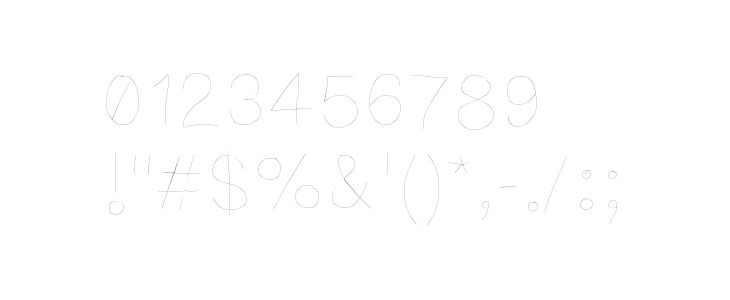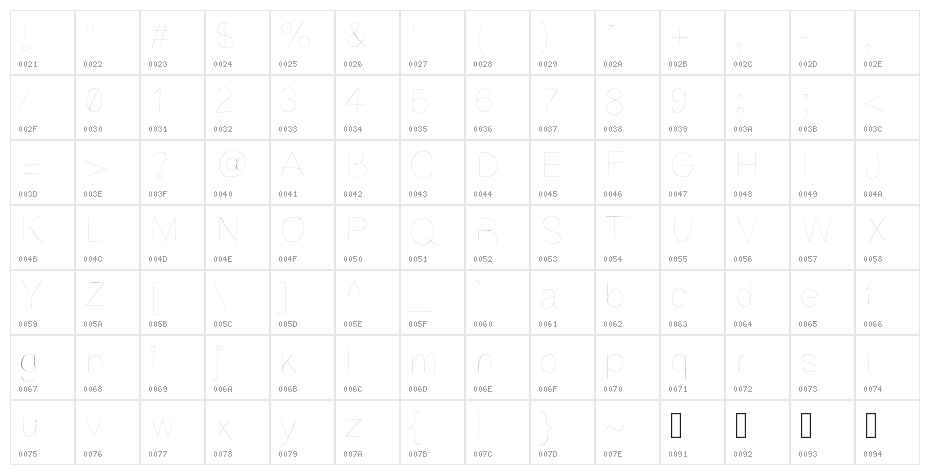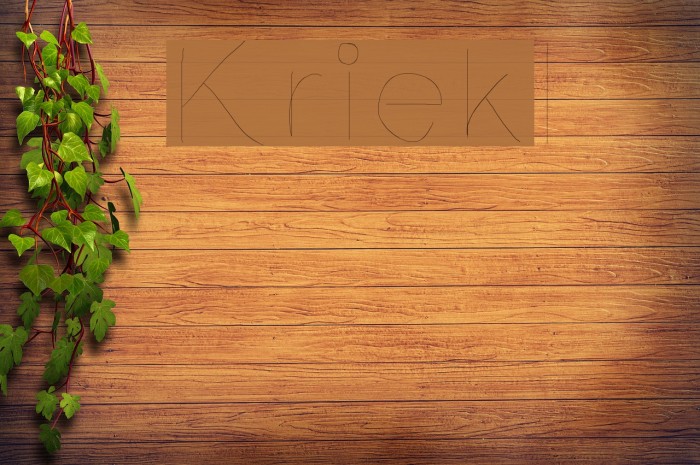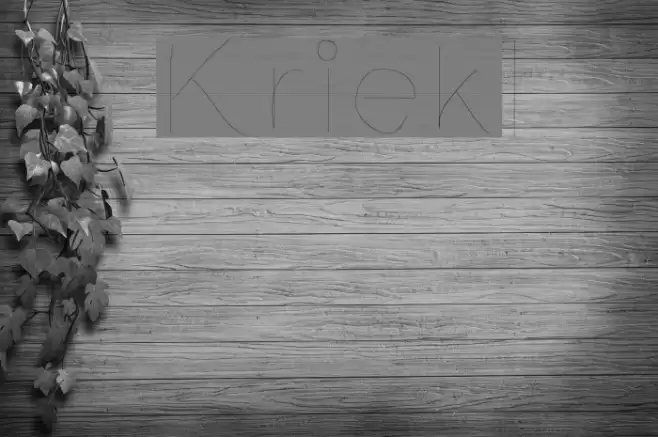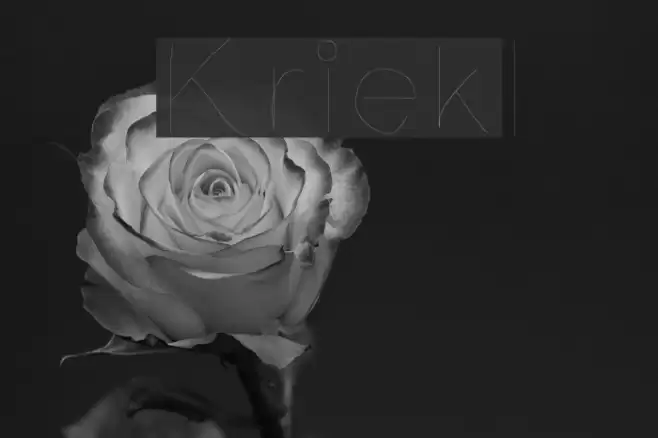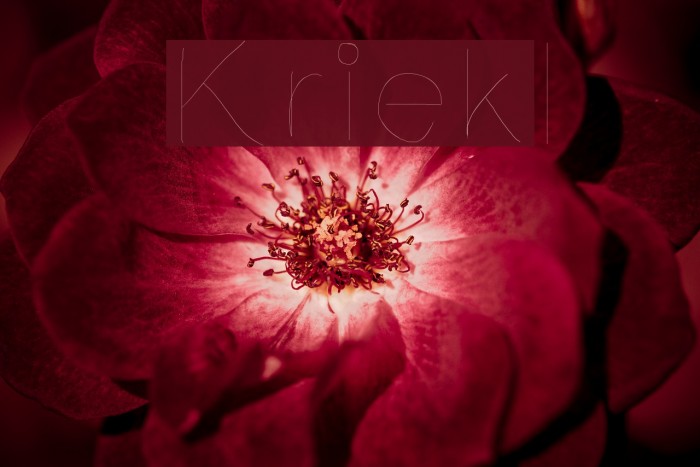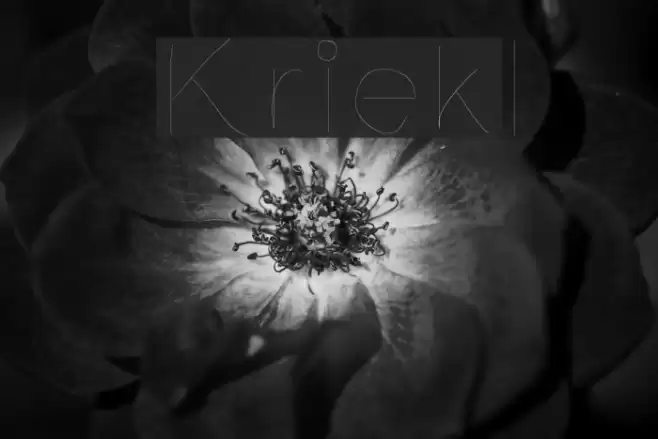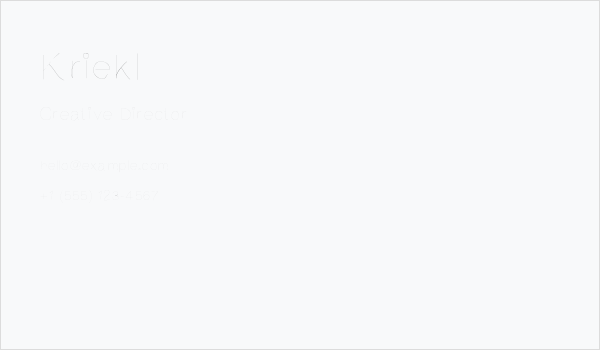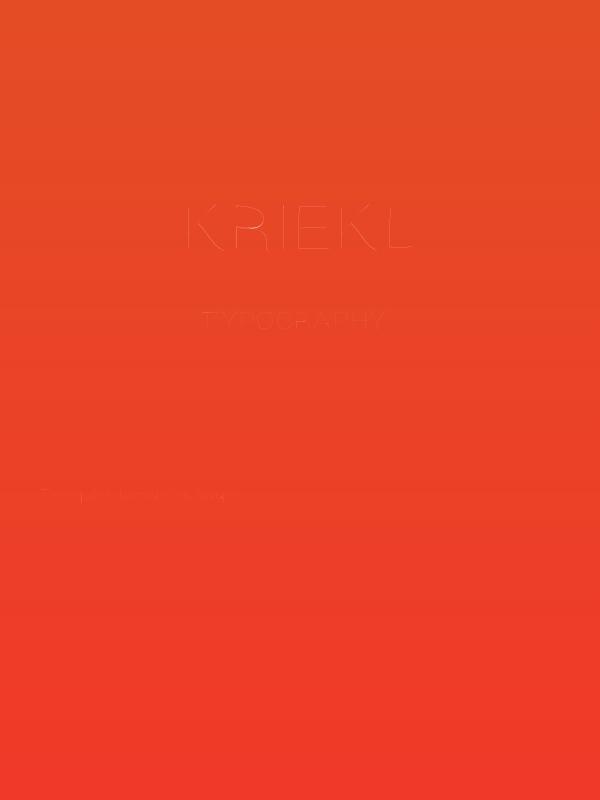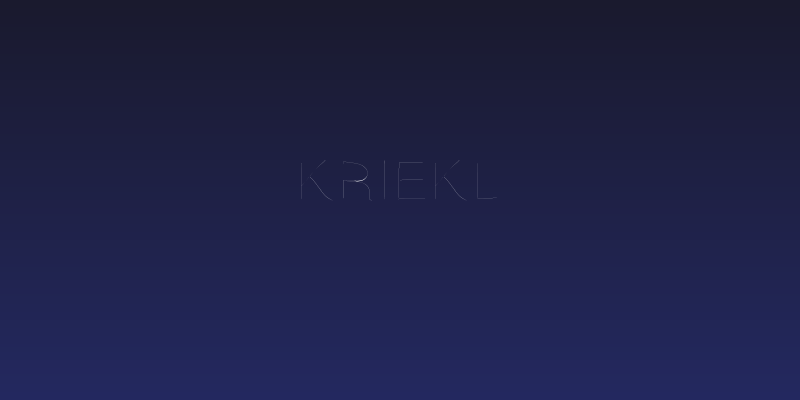
Kriekl Font
Kriekl Description
This font features a clean and minimalist design with a geometric structure. The characters are evenly spaced and exhibit a consistent stroke width, giving it a modern and streamlined appearance. The uppercase letters are slightly taller than the lowercase, maintaining a uniform height across the board. The numerals are clear and legible, matching the style of the alphabetic characters. Special characters are included, maintaining the same geometric style, making this font versatile for various uses. Its simplicity and clarity make it suitable for both digital and print media.
| Proposed Projects | Ideal for branding, web design, and modern print layouts. |